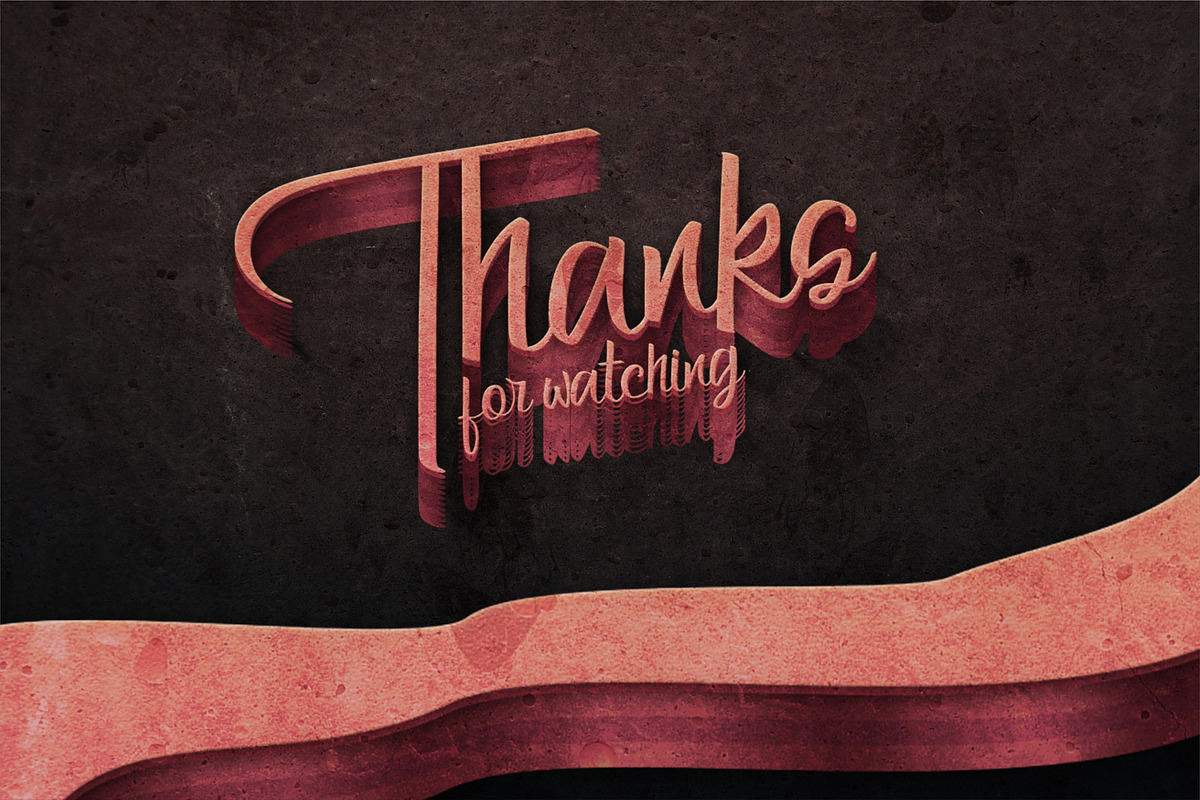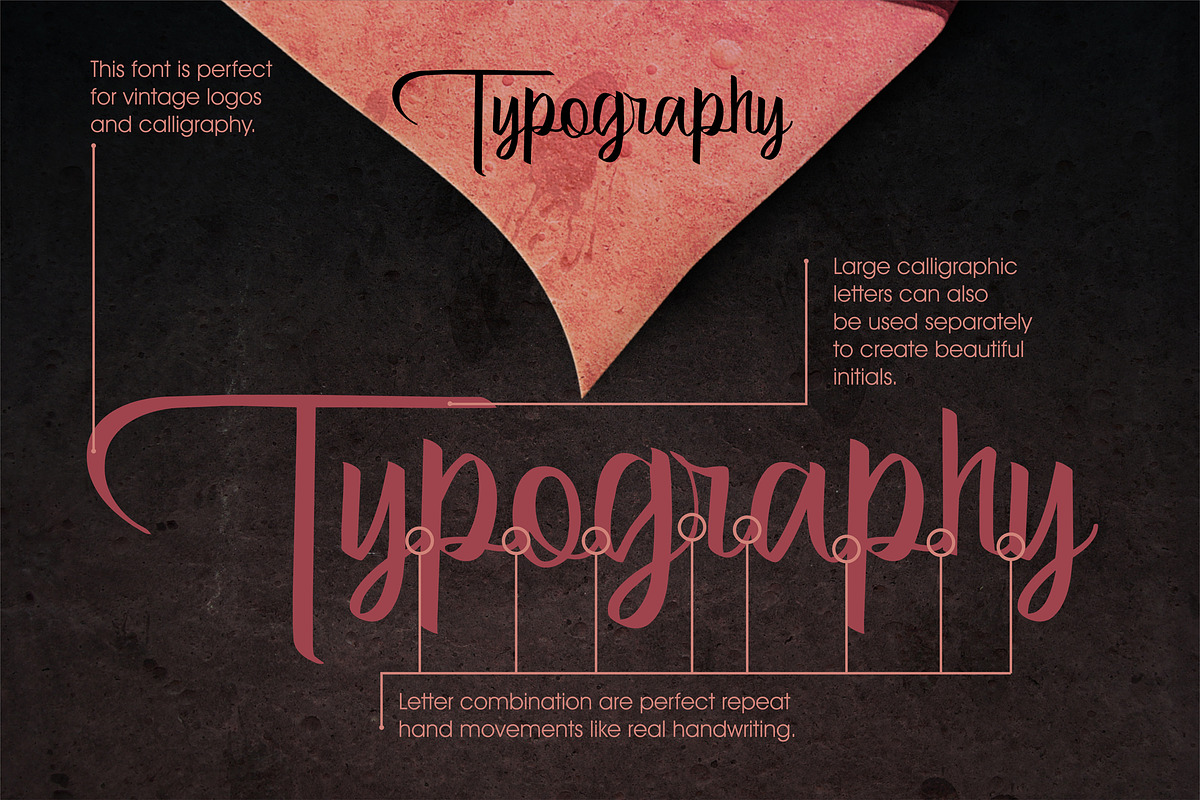
Bertha - Script With Ligatures
New attractive 100% handwritten font Bertha.
More than 350 symbols including English and Russian letters, numeric symbols and punctuation, basic and advanced ligatures and more.
Access the ligatures to enhance you writing capability and to modify your simple design with an excellent looking attractive glyph, letters, ligatures and fancy calligraphic tricks. This typeface have multilanguage support and could be aligned in many design occasions and presentations.